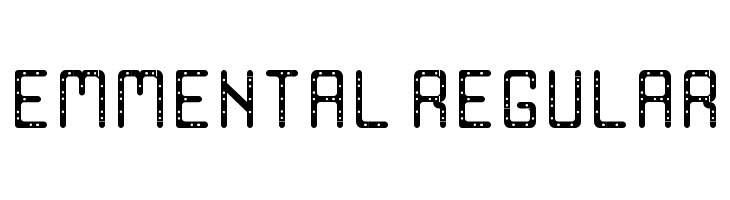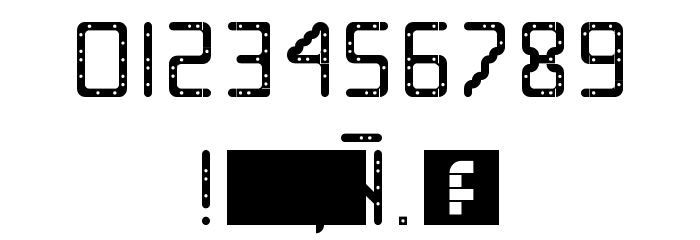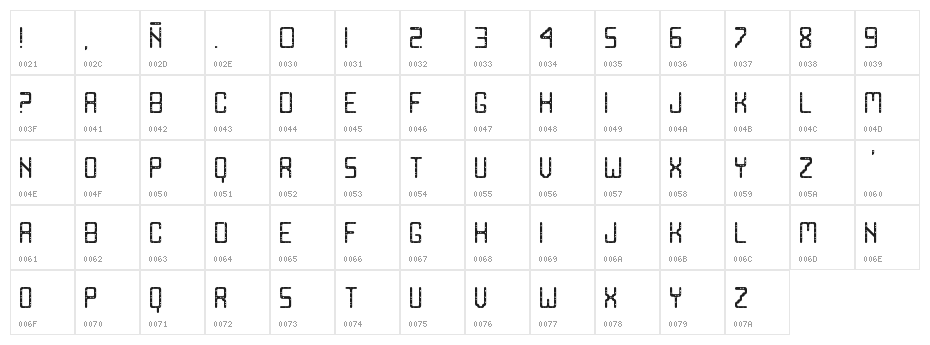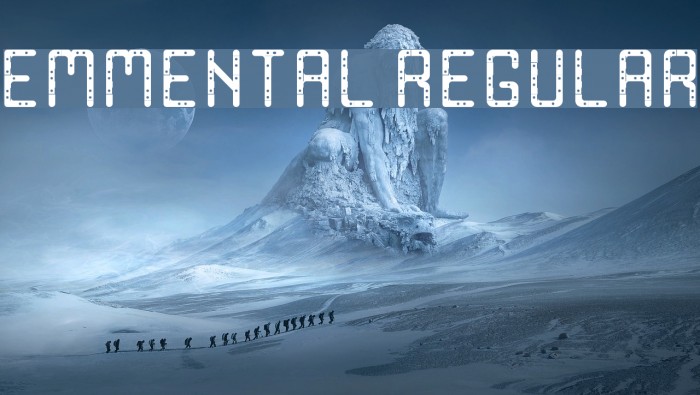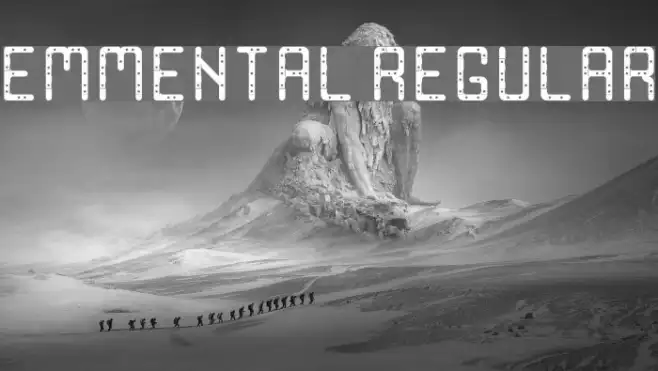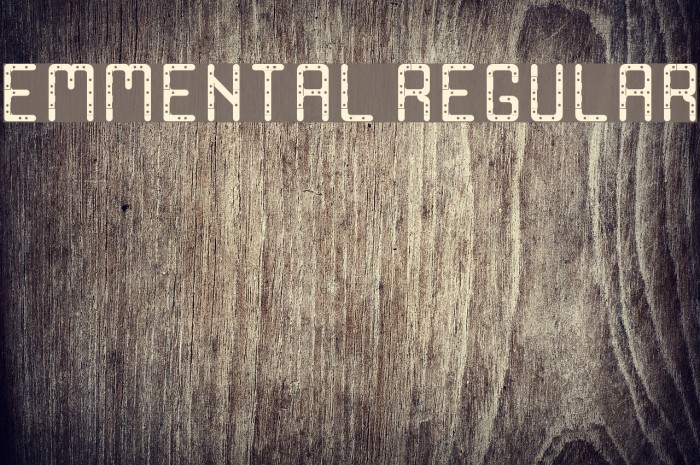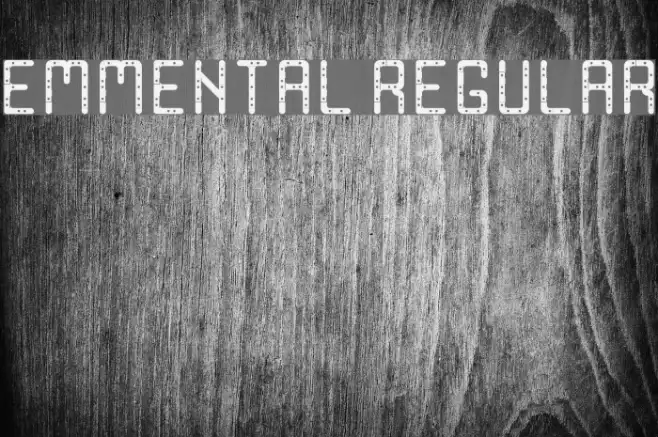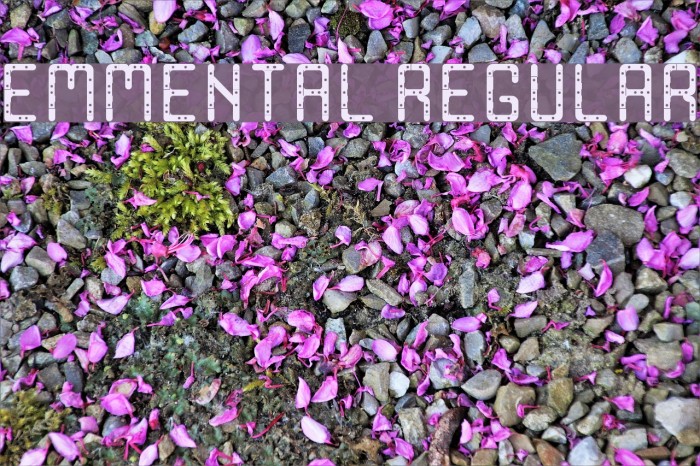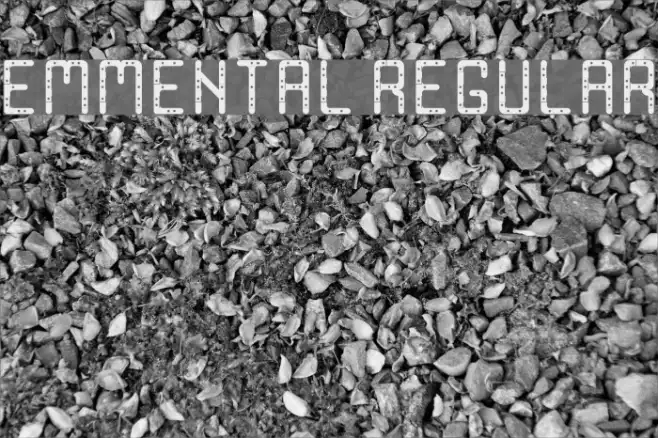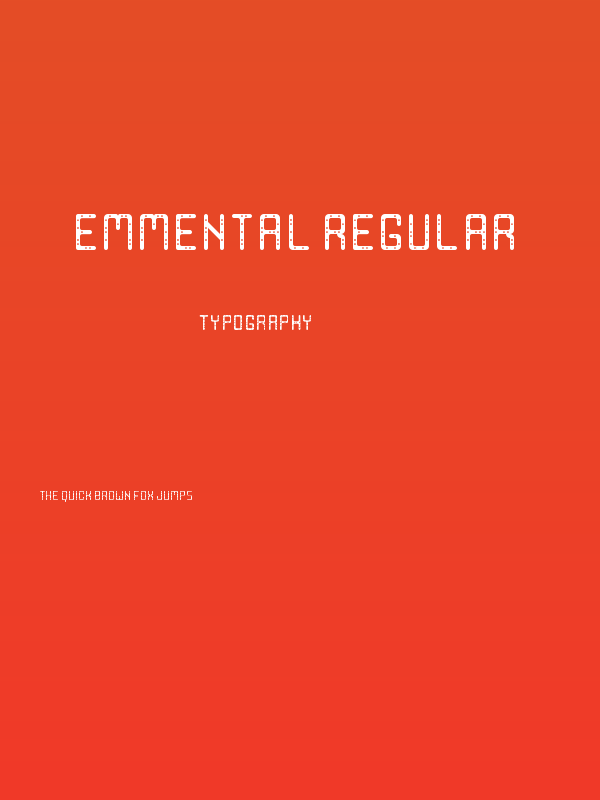
Emmental Regular Font
Emmental Regular Description
This font features a unique and playful design, characterized by its dotted pattern within each character. The letters are constructed with a bold, geometric style, giving them a modern and industrial feel. The consistent use of dots across all characters creates a cohesive and distinctive look. The font maintains a uniform thickness throughout, providing a balanced appearance. Its quirky and decorative nature makes it stand out, while still being legible and functional. The numbers and special characters follow the same design principles, ensuring a harmonious overall style.
| Use Case | Logos, Posters, Branding |
| Proposed Projects | Ideal for creative projects such as posters, logos, and branding materials that require a unique and eye-catching typeface. |